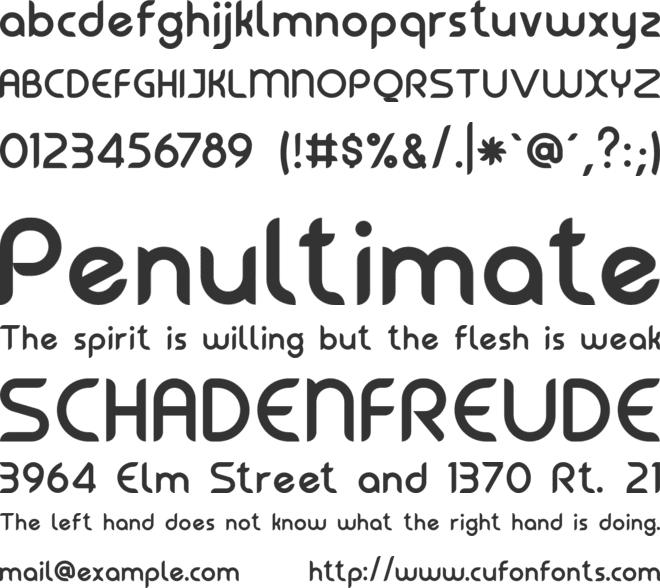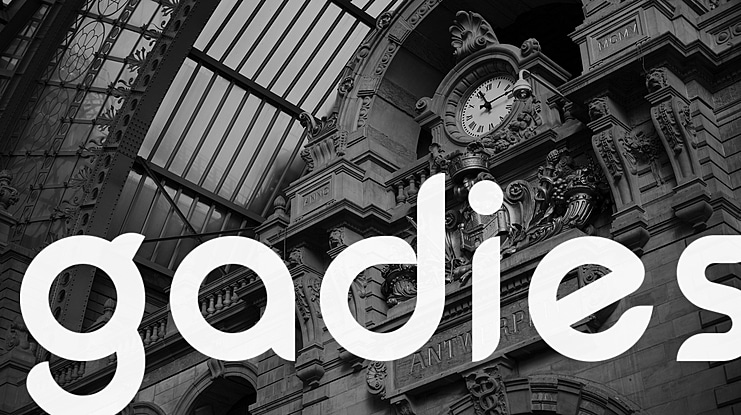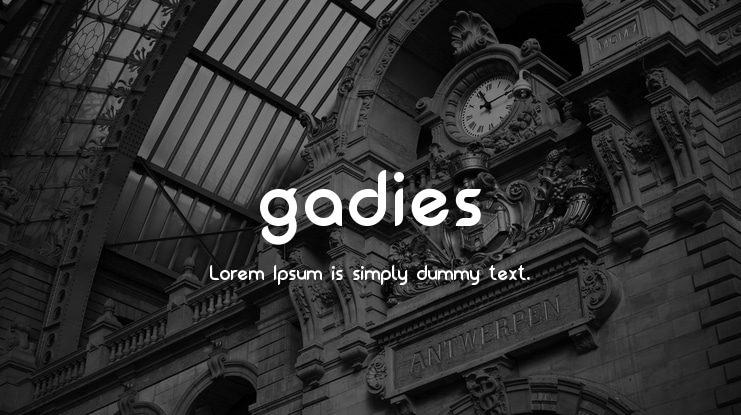
gadies Font
faldykudo
Gadies is a modern sans serif font. With its amazing and fun style, this typeface will look outstanding in both formal and non-formal designs. ____________________________________________________ This is Free for personal use only, for full version please visit link https://www.creativefabrica.com/product/gadies/ref/216322/